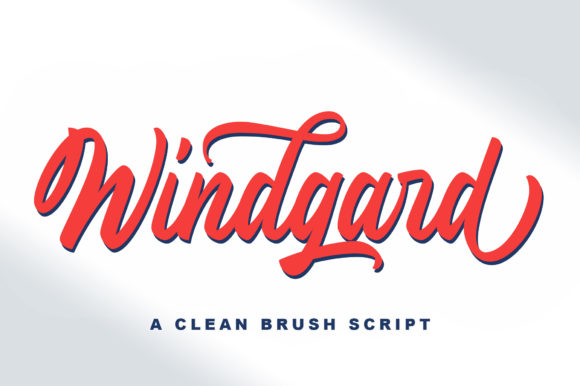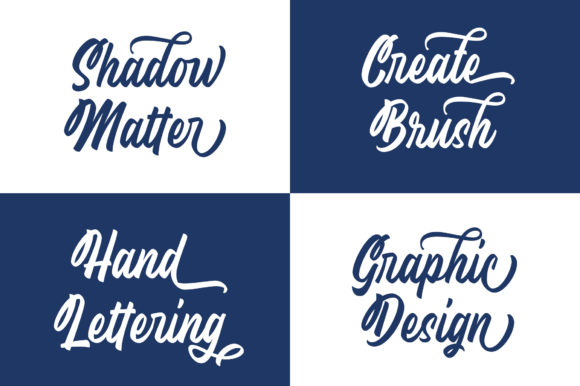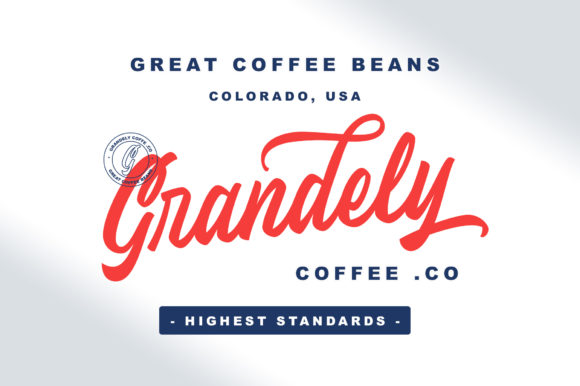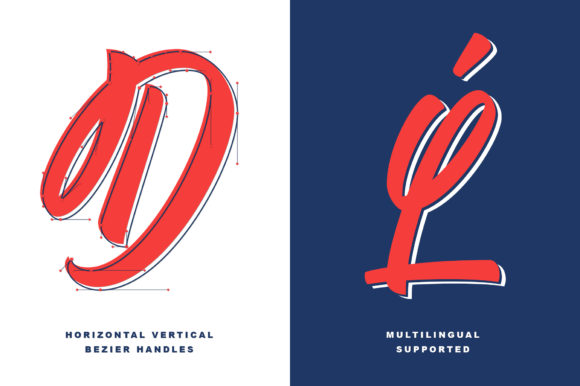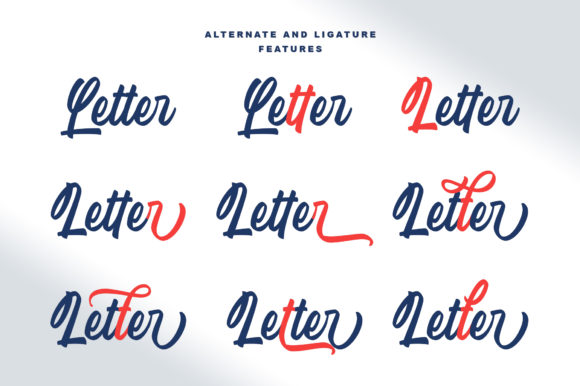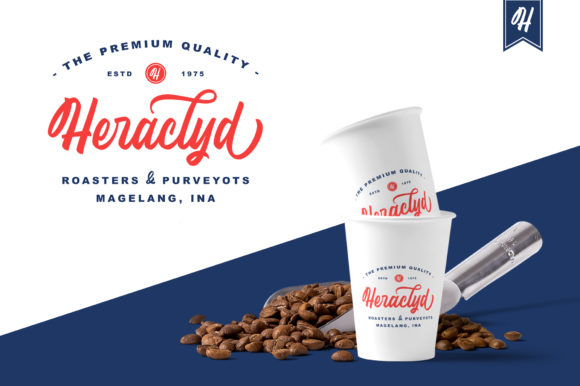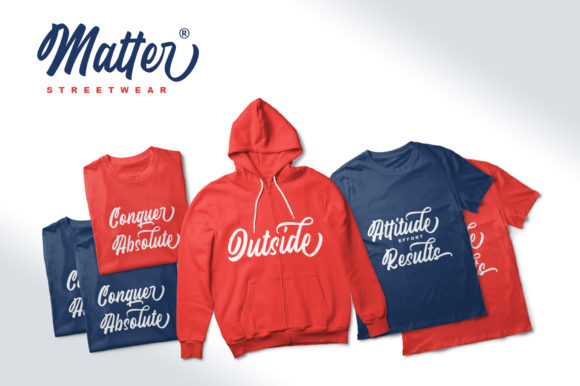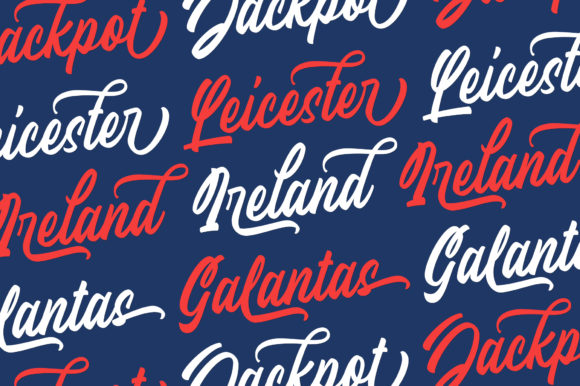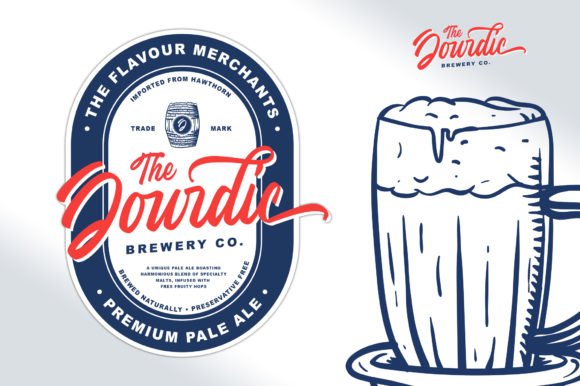
Windgard Font
About Windgard Font
Windgard is a beautiful and unique handwritten font with a cute twist. It will add a classic and timeless charm to any design project.